20 Elegant and Free Handwritten Fonts to Use in Your Next Project
Looking for elegant handwritten fonts that add personality and style to your creative projects? We’ve curated a fresh collection of 20 free handwritten fonts perfect for modern graphic design, branding, and creative work.
Whether you’re designing greeting cards, flyers, wedding invitations, apparel, or brand identities, these free handwritten typefaces bring a touch of authenticity and sophistication to every design.
Beautiful Handwritten Fonts for Modern Graphic Design
Each font in this collection has been carefully selected for its unique charm, elegance, and creative potential. These handcrafted fonts are ideal for:
Personal branding and logo design
Invitations and stationery
Social media graphics and blog headers
Product packaging and apparel prints
Creative posters and advertisements
No matter your style—minimalist, elegant, or artistic—you’ll find a handwritten font here to match your project’s personality.
Bring a handcrafted and polished look to your work and make your typography stand out from the crowd.
1. Julian Script Typeface
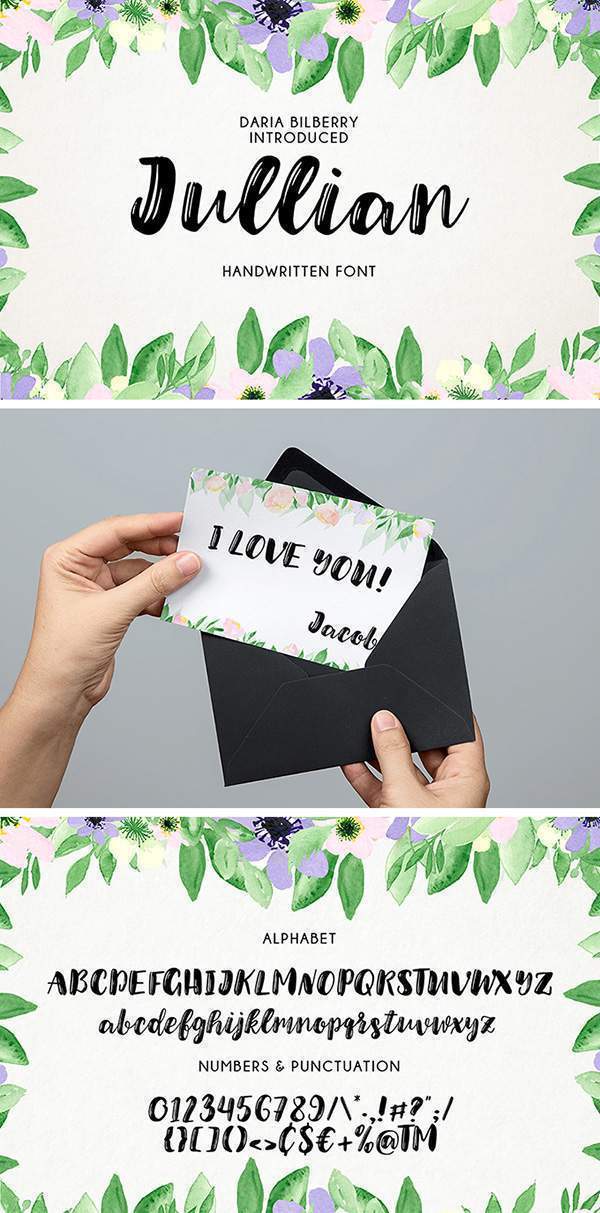
2. Oraqle Font
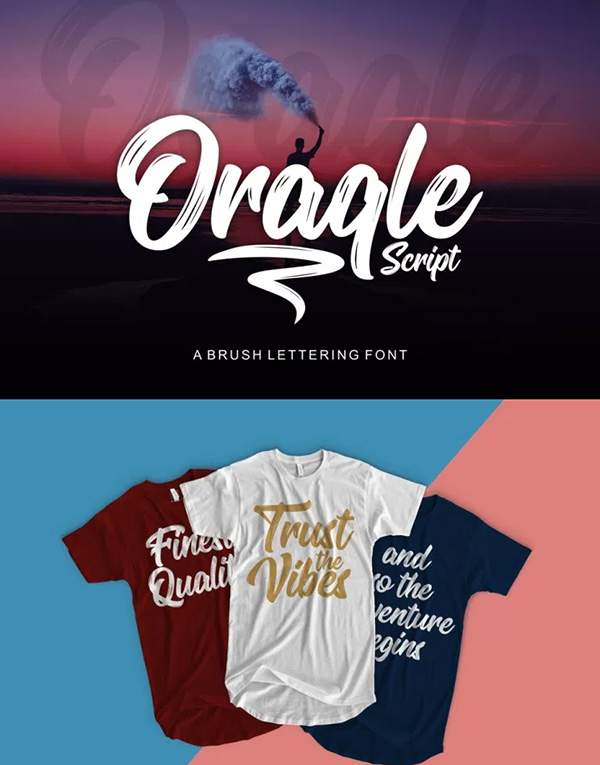
3. Wildera Font
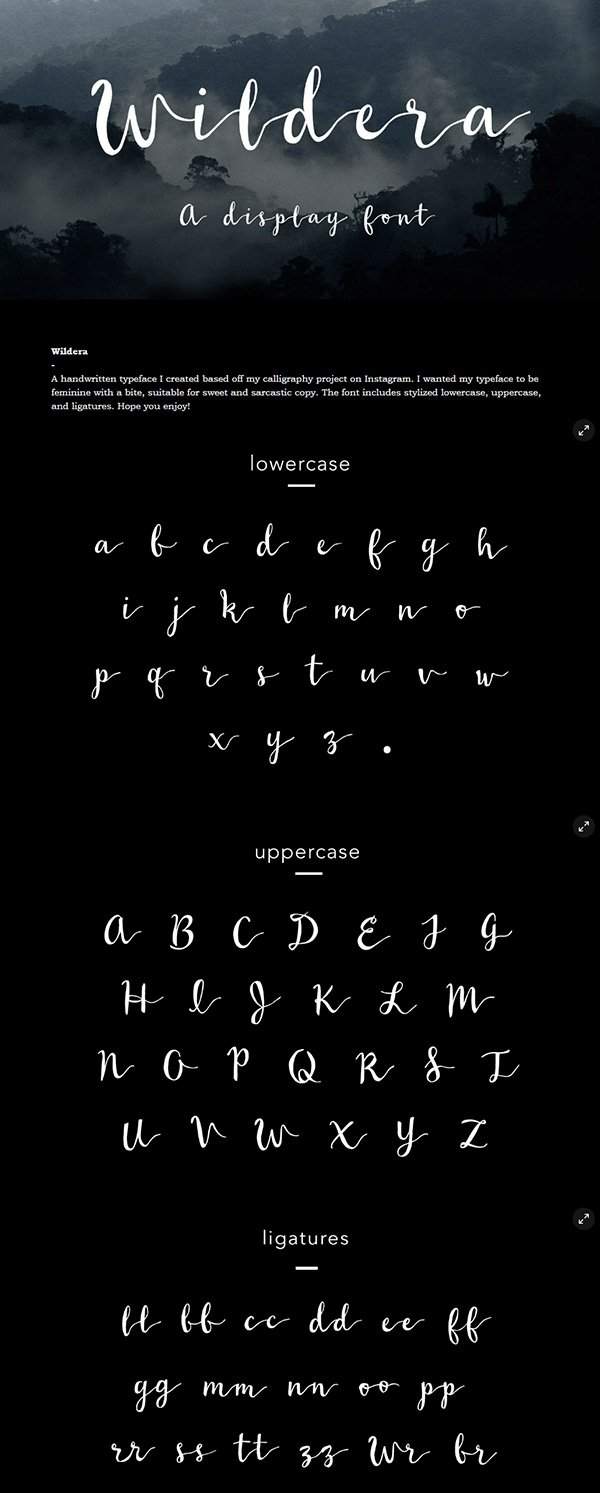
4. Tormentor Handwritten Font
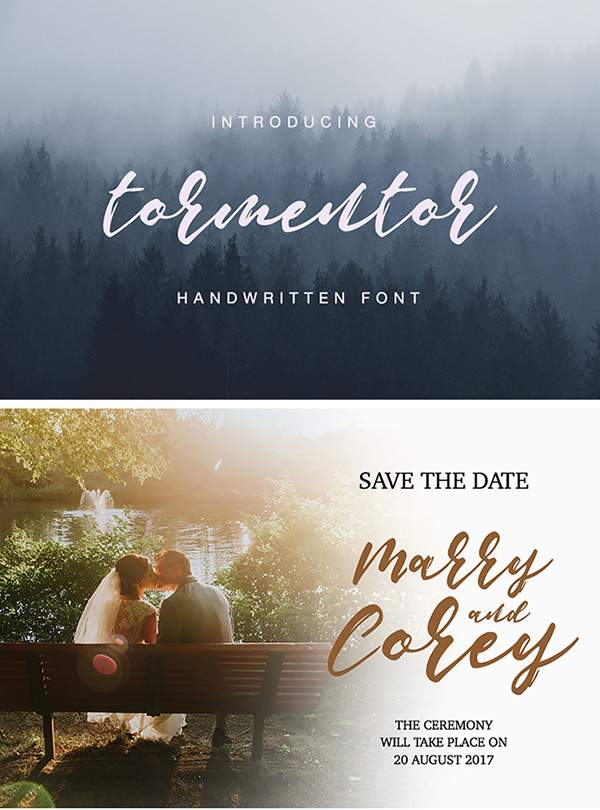
5. Rustico Font
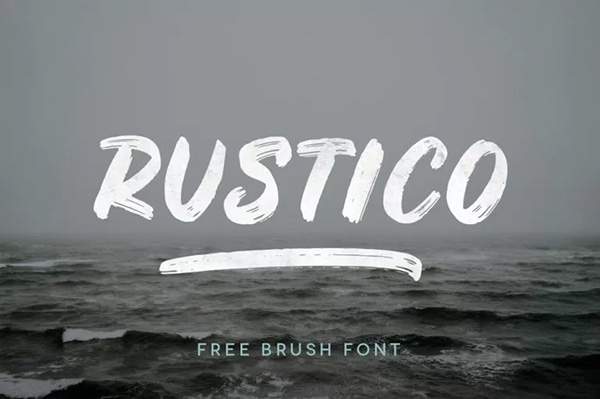
6. Solena Font
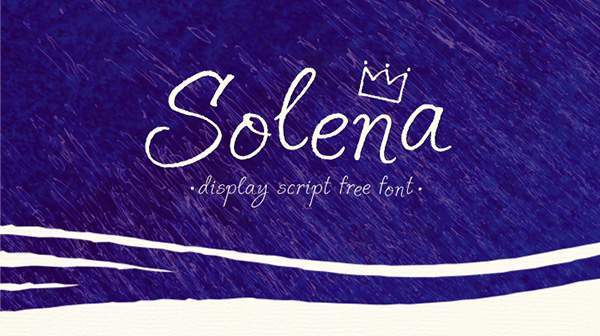
7. Westfalia Font
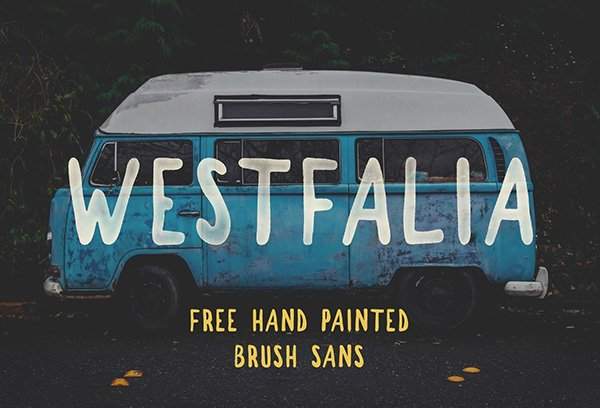
8. Alivia Font
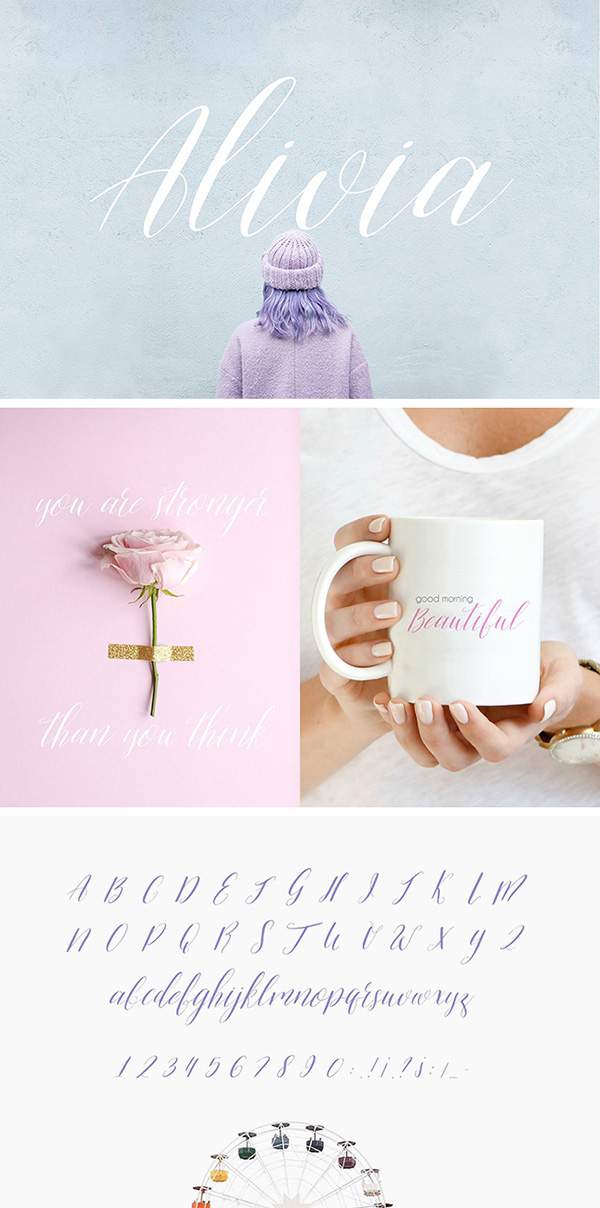
9. Sprightly
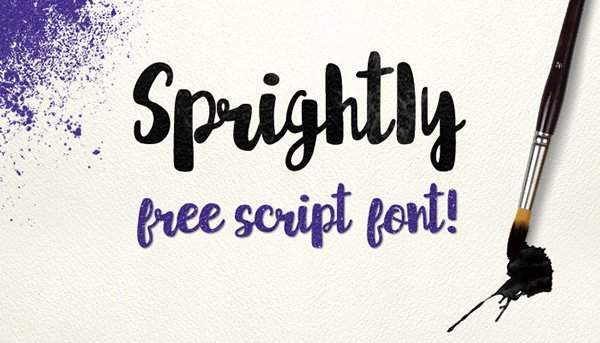
10. Miller Salt Font DUO Font
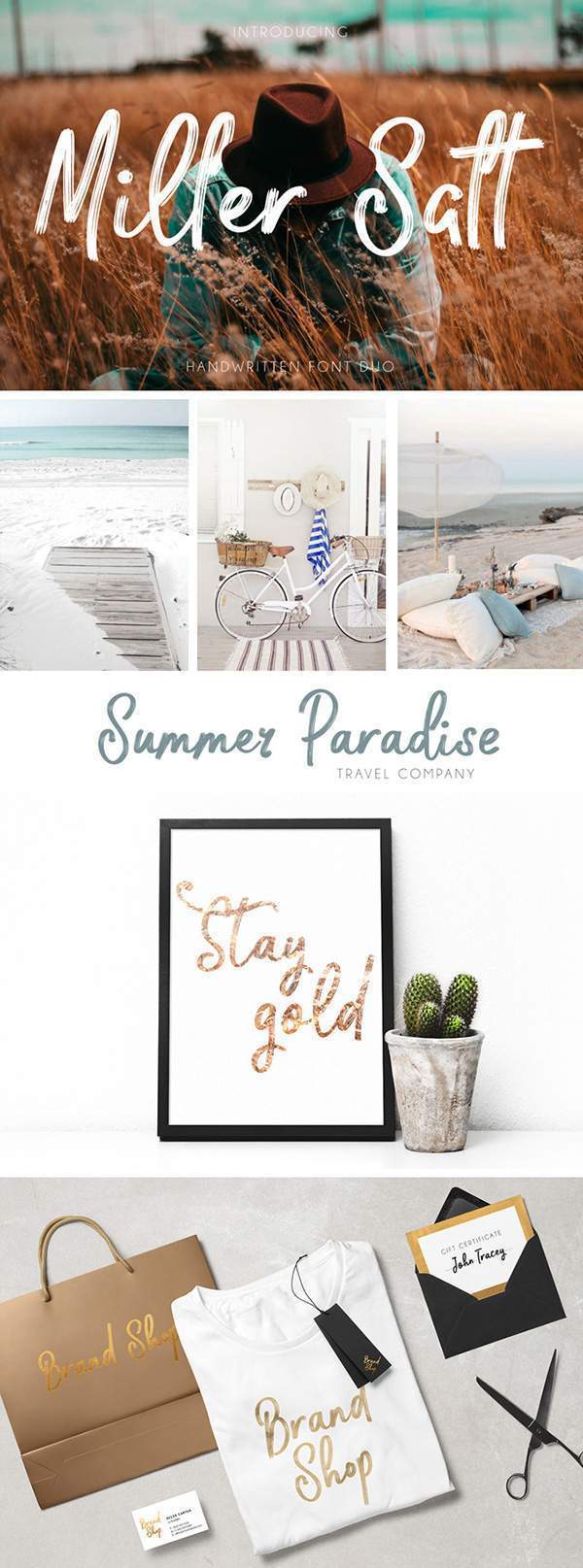
11. Little Cutie Font
12. Atmosphere Font
13. Brownhill Script Font
14. Little Brushy Font
15. Befindisa Script Font
16. Connoisseurs Typeface font
17. The Woodlands Font
18. Formia Script font
19. Summer Hearts Font
20. Sitka Brush font